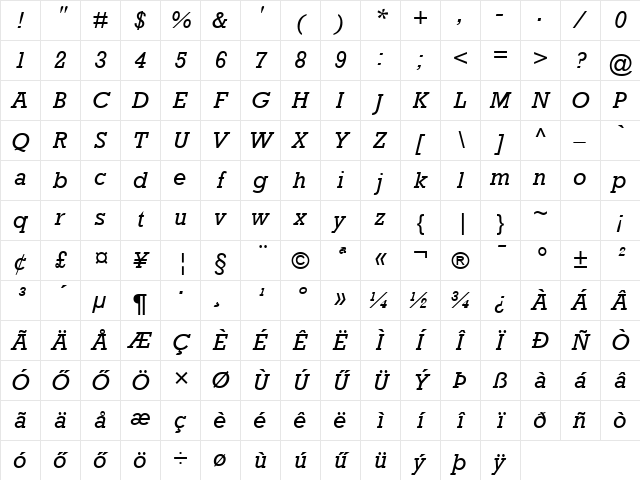
Hu_Rockwell Italic Regular
Design Context for Hu_Rockwell Italic
Hu_Rockwell Italic is a composed and adaptable typeface that performs quietly and consistently across a wide range of design contexts. The slanted form adds forward momentum and visual energy.
Pro Tip: Use Hu_Rockwell Italic for emphasis, pull quotes, and subheadings where its slanted energy can add rhythm to the layout.